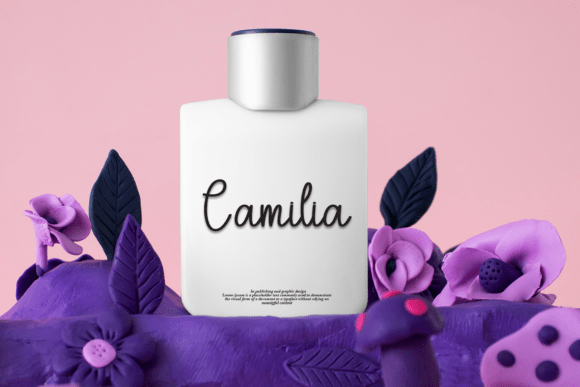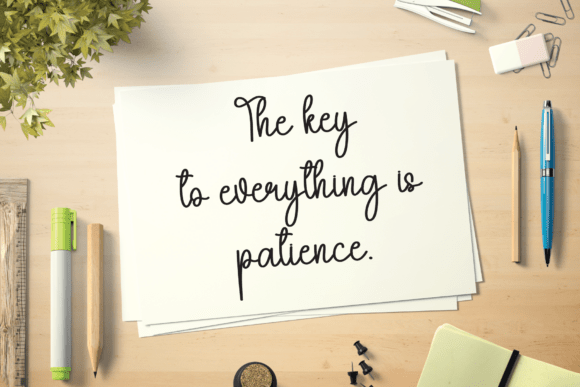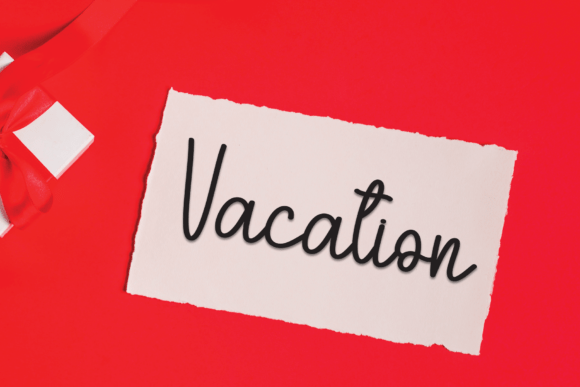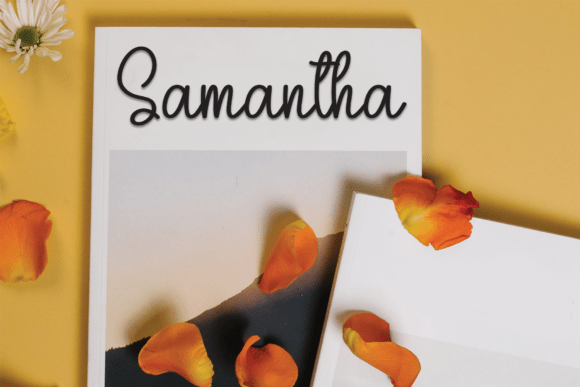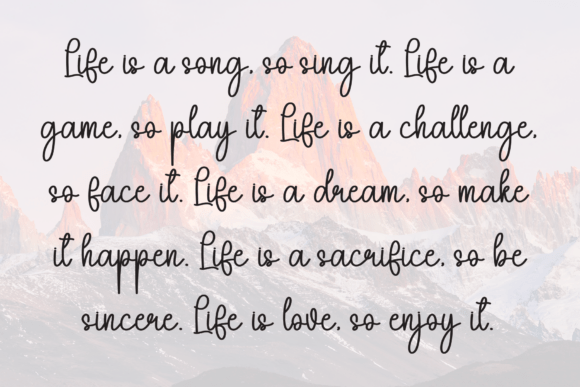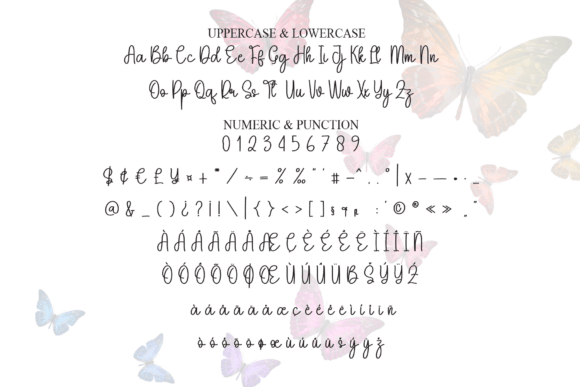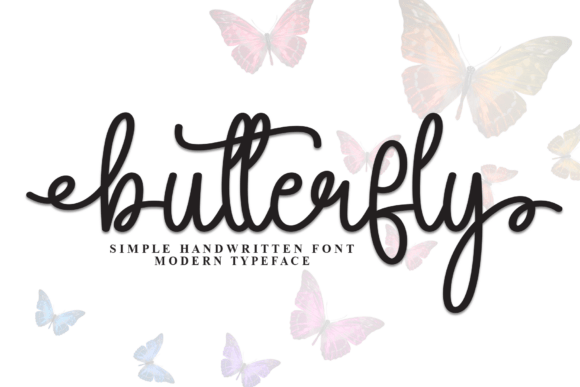
Introducing Butterfly Font: Elevate Your Designs with Elegance and Charm
Are you looking for a font that embodies the essence of spring and adds a touch of sophistication to your designs? Look no further than the Butterfly Font, a beautiful handwritten script font that exudes fresh elegance and delicate charm. In this article, we’ll dive into the world of Butterfly Font, exploring its features, uses, and benefits for designers and crafters.
The Beauty of Butterfly Font
Butterfly Font is a stylish handwritten script font that radiates a sense of renewal and joy. Its flowing strokes and graceful curves evoke the gentle movement of a butterfly, making it perfect for designs that require a touch of whimsy and elegance. Whether you’re creating invitations, branding materials, or seasonal designs, Butterfly Font is sure to add a soft, personal touch and uplifting feel to your project.
Key Features of Butterfly Font
- Handwritten Script: Butterfly Font boasts a beautiful, handwritten script that adds a personal touch to any design.
- Flowing Strokes: The font’s flowing strokes and graceful curves create a sense of movement and fluidity.
- Elegant and Delicate: Butterfly Font exudes a sense of elegance and delicacy, making it perfect for designs that require a touch of sophistication.
- Renewal and Joy: The font’s fresh and uplifting feel makes it ideal for designs that celebrate new beginnings and joyous occasions.
Uses for Butterfly Font
Butterfly Font is a versatile typeface that can be used in a variety of design projects, including:
- Invitations: Add a touch of elegance and whimsy to your invitations, whether it’s a wedding, baby shower, or birthday party.
- Branding: Use Butterfly Font to create a unique and memorable brand identity that reflects your company’s values and personality.
- Seasonal Designs: Perfect for spring and summer designs, Butterfly Font adds a fresh and uplifting feel to any project.
- Stationery: Create beautiful stationery, such as greeting cards, thank-you cards, and journals, with Butterfly Font.
Butterfly Font offers a range of benefits for designers and crafters, including:
- Easy to Read: The font’s clear and legible design makes it easy to read, even at small sizes.
- Highly Versatile: Butterfly Font can be used in a variety of design projects, from invitations to branding materials.
- Unique and Memorable: The font’s elegant and delicate design makes it stand out from more traditional typefaces.
- Time-Saving: With Butterfly Font, you can create beautiful designs quickly and easily, saving you time and effort.
Tips for Using Butterfly Font
To get the most out of Butterfly Font, here are a few tips to keep in mind:
- Pair with Other Fonts: Combine Butterfly Font with other fonts to create a unique and visually appealing design.
- Experiment with Colors: Try out different colors and color combinations to find the perfect match for your design.
- Use for Headings and Titles: Butterfly Font is perfect for headings and titles, adding a touch of elegance and sophistication to your design.
In conclusion, Butterfly Font is a beautiful and versatile typeface that adds a touch of elegance and charm to any design. With its flowing strokes, graceful curves, and fresh feel, it’s perfect for designers and crafters looking to create unique and memorable designs. Whether you’re creating invitations, branding materials, or seasonal designs, Butterfly Font is sure to elevate your project and leave a lasting impression.